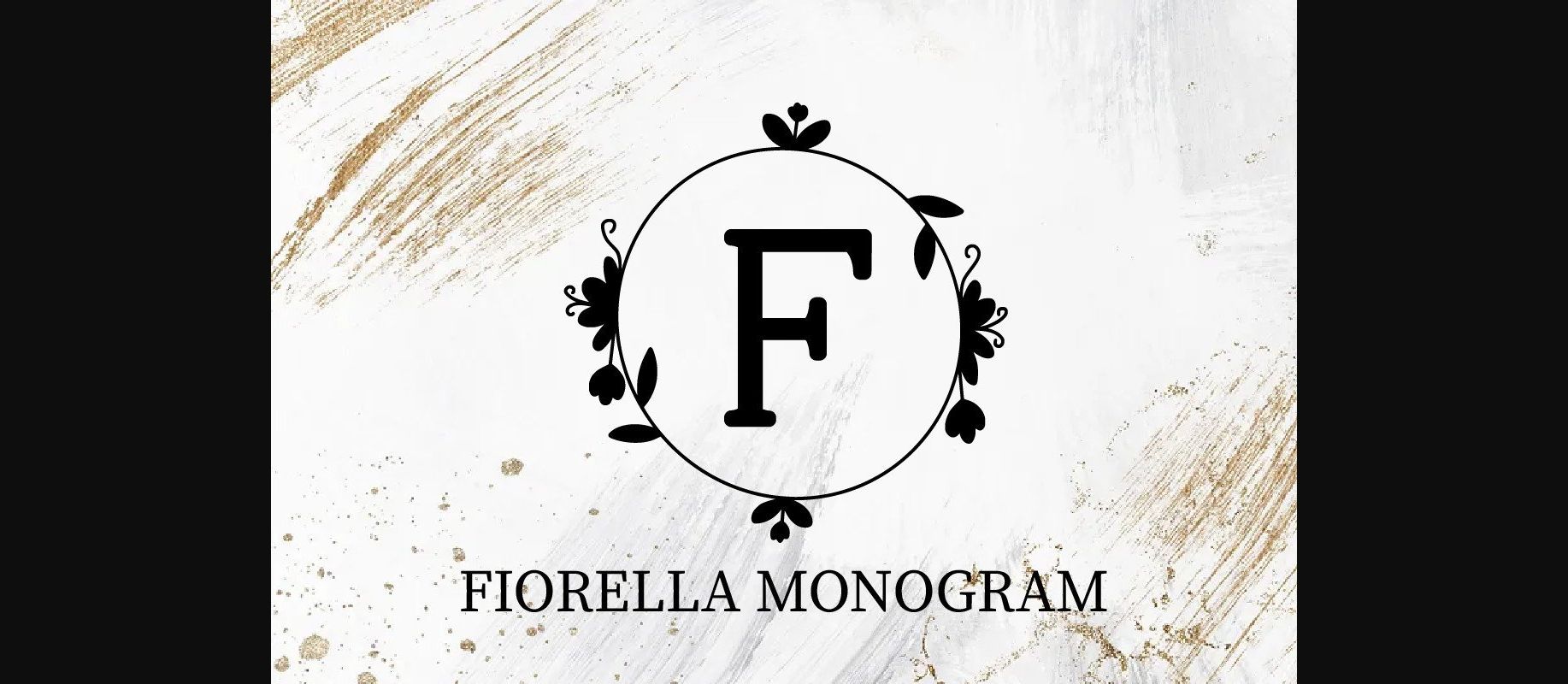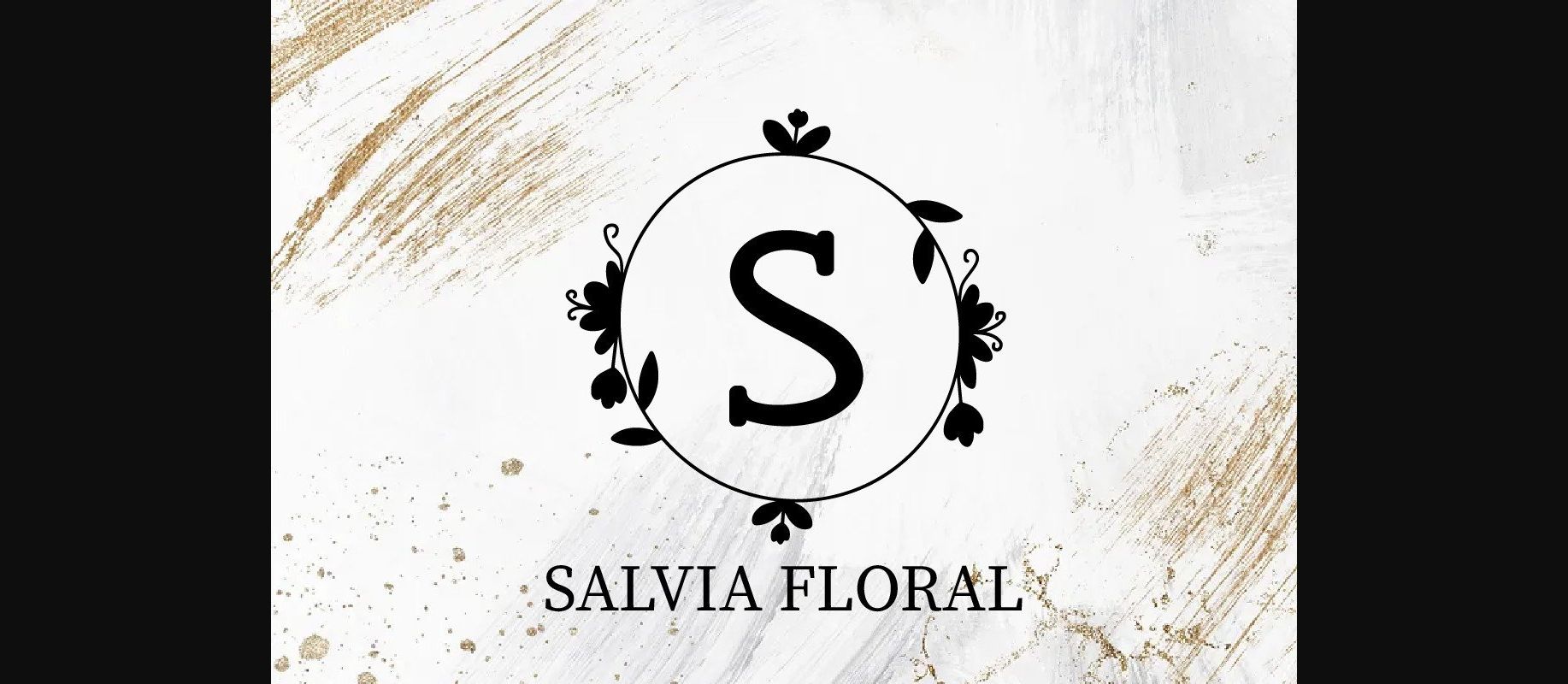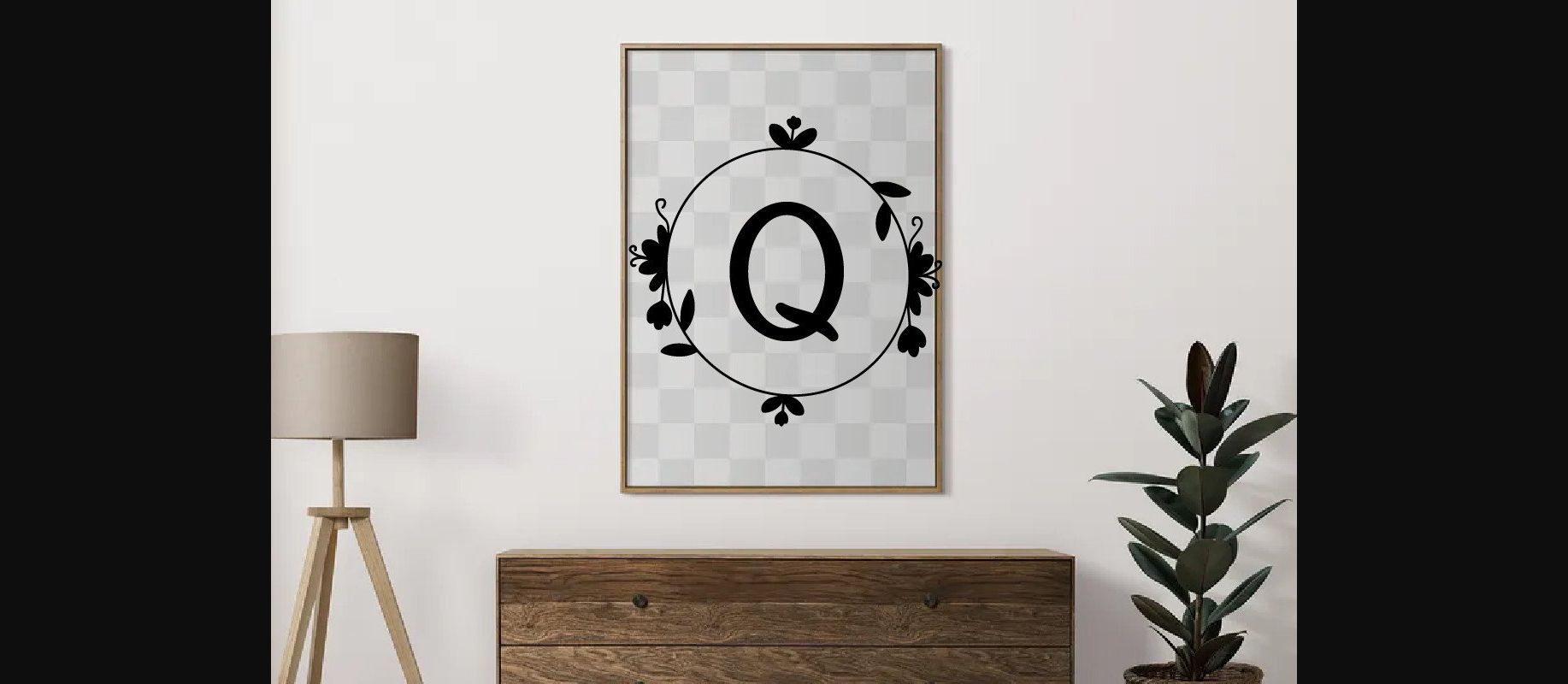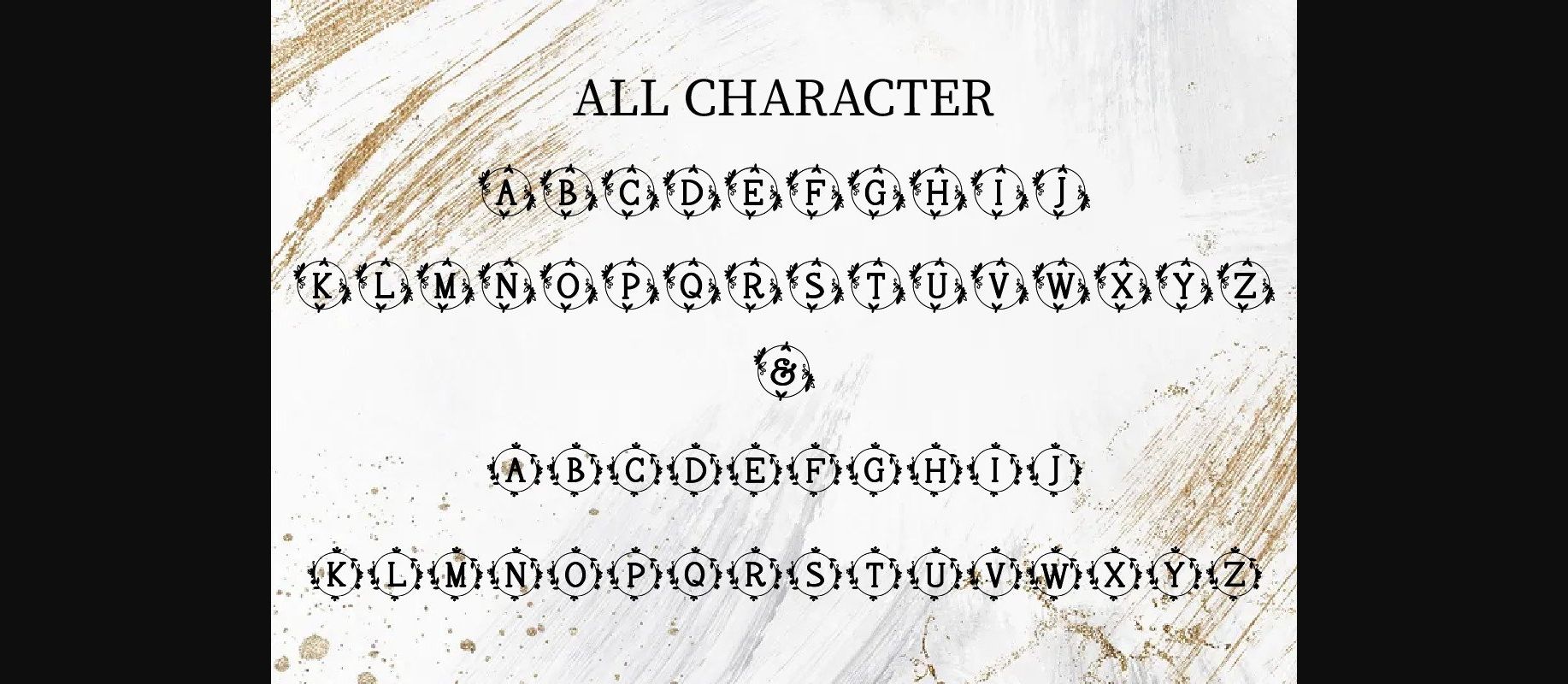
Fiorella Font
About Fiorella Font
Fiorella is a Decorative Monogram font. This font can enhance your design projects such as Wedding Invitations, Logos, Engagement, Love, and many other Creative ideas.